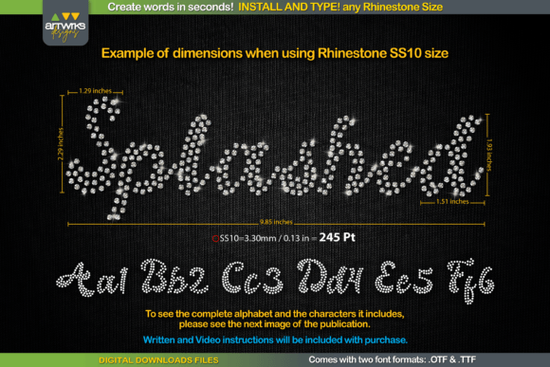
If you're looking for a unique and eye-catching font to add to your design toolkit, the Splashed Font is a fantastic choice. This rhinestone template script font allows you to create beautifully detailed words in seconds, making it perfect for designers, crafters, and print-on-demand sellers who want to add a touch of elegance and sparkle to their projects.
What Makes Splashed Font Stand Out?
The Splashed Font is not just any ordinary script font. It's designed with a rhinestone template in mind, which means each letter is perfectly filled with rhinestones or arranged for heat transfer vinyl. This makes it incredibly easy to customize your designs with text that looks like it’s been hand-embellished with tiny, sparkling gems. Whether you're creating custom t-shirts, mugs, or other merchandise, this font adds a luxurious and professional touch.
How Can You Use Splashed Font in Your Designs?
The versatility of the Splashed Font makes it suitable for a wide range of creative projects. Here are a few ideas:
- Custom T-Shirts and Apparel: Add a name or a fun phrase to a t-shirt using the Splashed Font. The rhinestone effect will make your designs stand out and look high-end.
- Wedding Invitations and Stationery: Create elegant and personalized wedding invitations, thank you cards, and other stationery items. The font's intricate details will add a touch of sophistication to your special day.
- Home Decor: Use the Splashed Font to create custom wall art, pillows, or other home decor items. The rhinestone effect can bring a touch of luxury to any room.
- Print-on-Demand Products: If you sell products on platforms like Etsy or Redbubble, the Splashed Font can help you create unique and appealing designs that will catch the eye of potential customers.
Tips for Using Splashed Font Effectively
To get the most out of the Splashed Font, here are a few tips:
- Test Different Sizes: Experiment with different sizes to see what works best for your project. Smaller sizes might work well for subtle details, while larger sizes can be used for more prominent text.
- Combine with Other Fonts: Pair the Splashed Font with simpler, complementary fonts to create a balanced and visually appealing design. For example, you could use a clean sans-serif font for the body text and the Splashed Font for headings or highlights.
- Use High-Quality Materials: When printing or transferring your designs, make sure to use high-quality materials. This will ensure that the rhinestone effect looks as stunning as possible.
Final Thoughts
The Splashed Font is a wonderful addition to any designer's or crafter's collection. Its unique rhinestone effect and ease of use make it a go-to choice for creating stunning and professional-looking designs. Whether you're working on a personal project or designing for clients, this font is sure to impress.